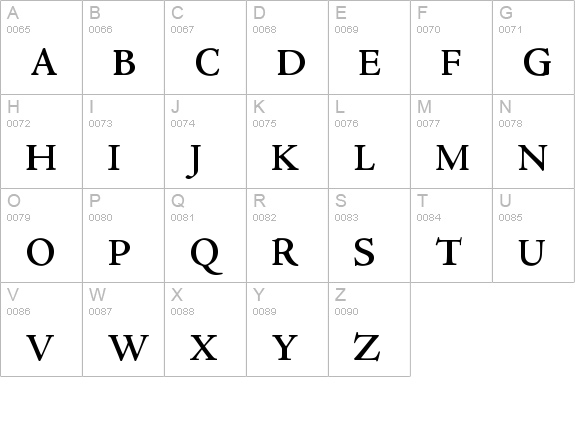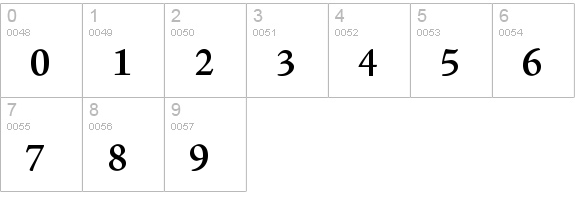
Adobe Jenson Pro Semibold is a sub-bold, structured variant in the Adobe typeface family \xE2\x80\x94 well suited to sub-headlines and emphasised passages.
Adobe Jenson Pro Semibold is a sophisticated and elegant serif font that exudes a sense of modernity and professionalism. With its robust and striking design, this font is perfect for adding a touch of sophistication to any project, whether it be print or digital. The semi-bold weight provides a strong presence on the page while maintaining readability and clarity. And the best part? Adobe Jenson Pro Semibold is available for free download at FontsMarket.com. This means you can easily access and use this high-quality font in your designs without any cost. Whether you're working on a branding project, editorial layout, or web design, Adobe Jenson Pro Semibold is sure to elevate your work with its timeless aesthetic and versatility. Download this font today and add a touch of elegance to your projects!